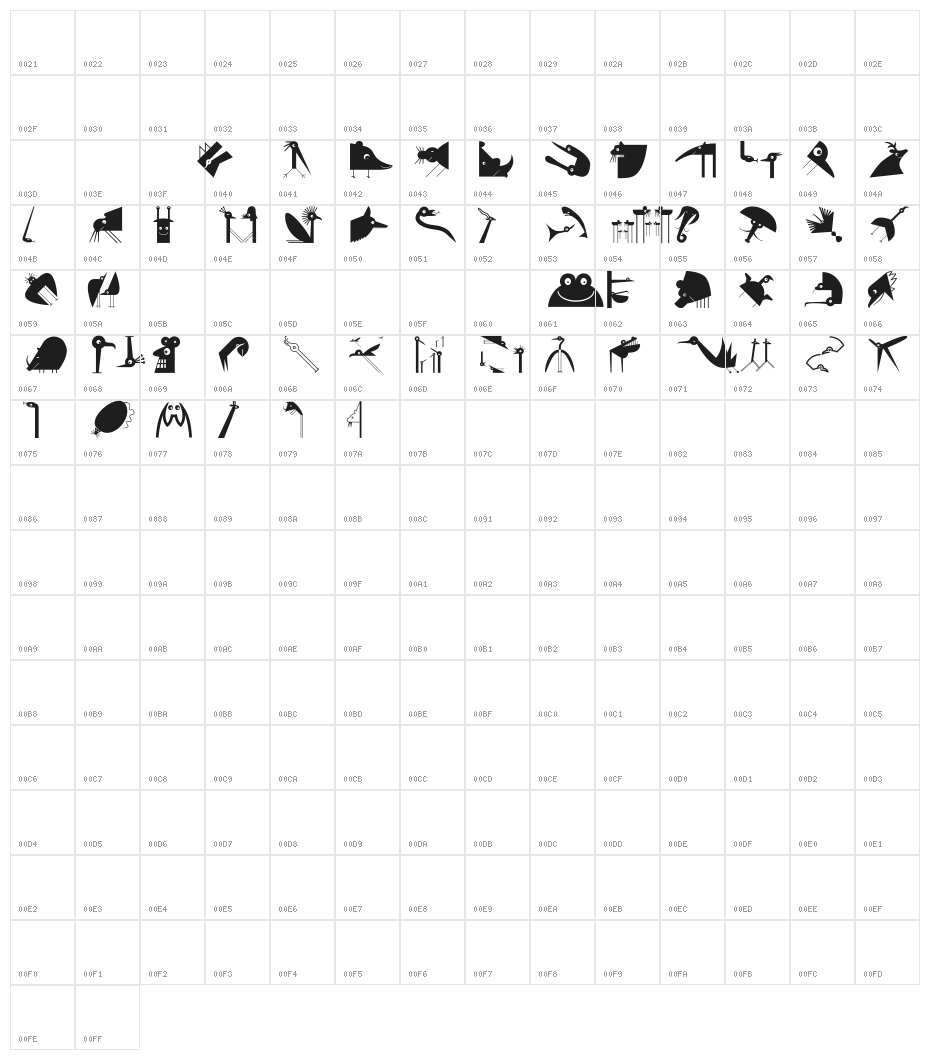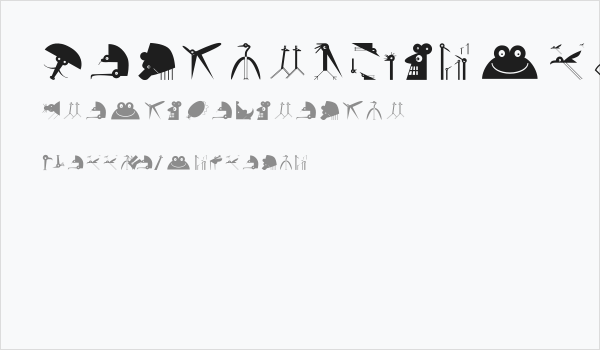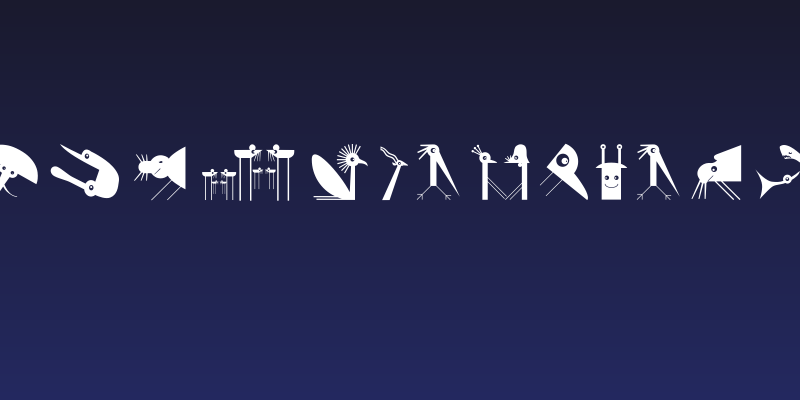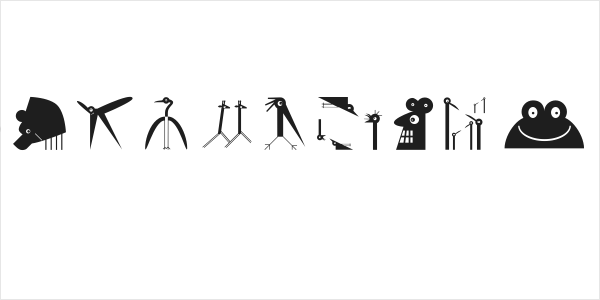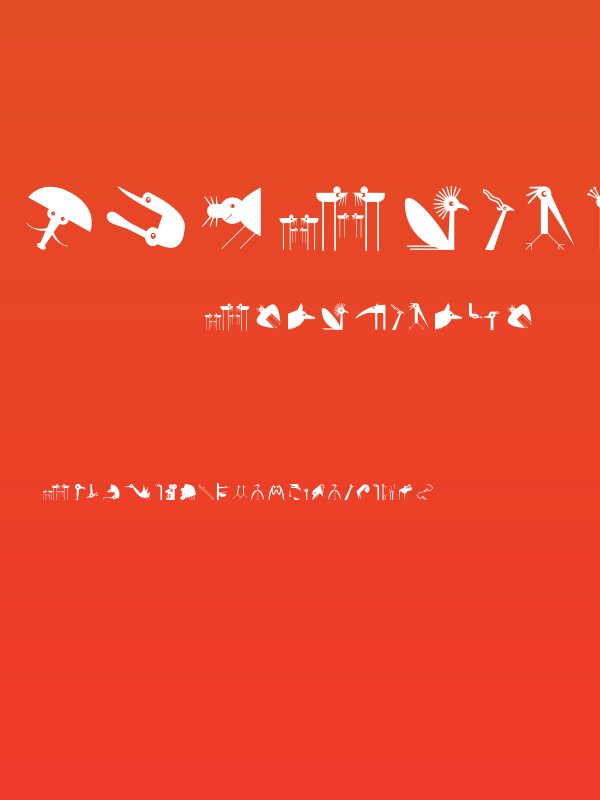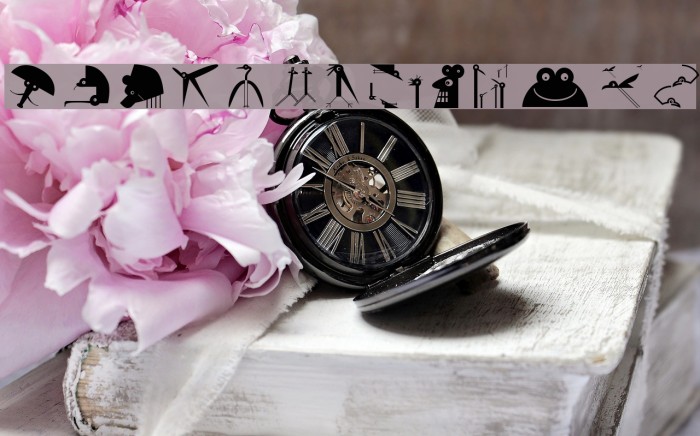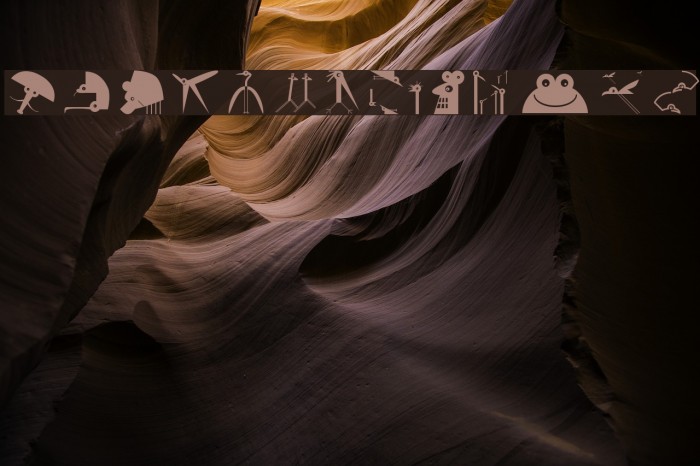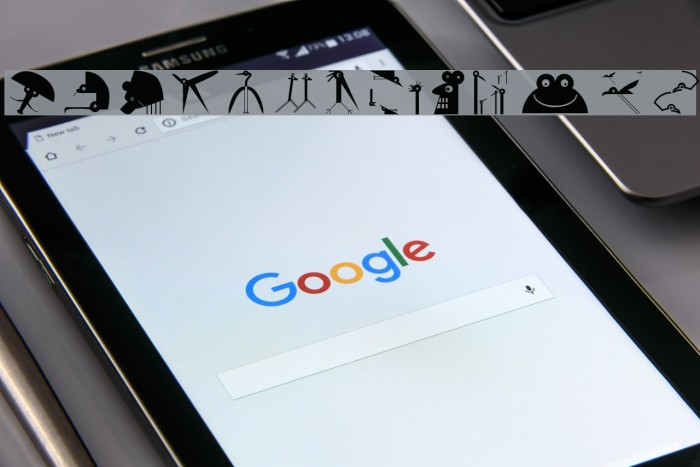
VectorAnimals Font
VectorAnimals Description
This is a decorative font featuring a collection of whimsical animal illustrations. Each character is represented by a unique, stylized animal design, showcasing a playful and creative approach. The characters are bold and filled with solid black, providing a strong visual impact. The designs are abstract and imaginative, often combining elements of different animals to create a fantastical appearance. This font is perfect for projects that require a fun and artistic touch, such as children's books, playful branding, or creative posters.
| Use Case | Logos, Headlines, Creative projects |
| Proposed Projects | Ideal for children's books, playful branding, creative posters, and artistic projects. |